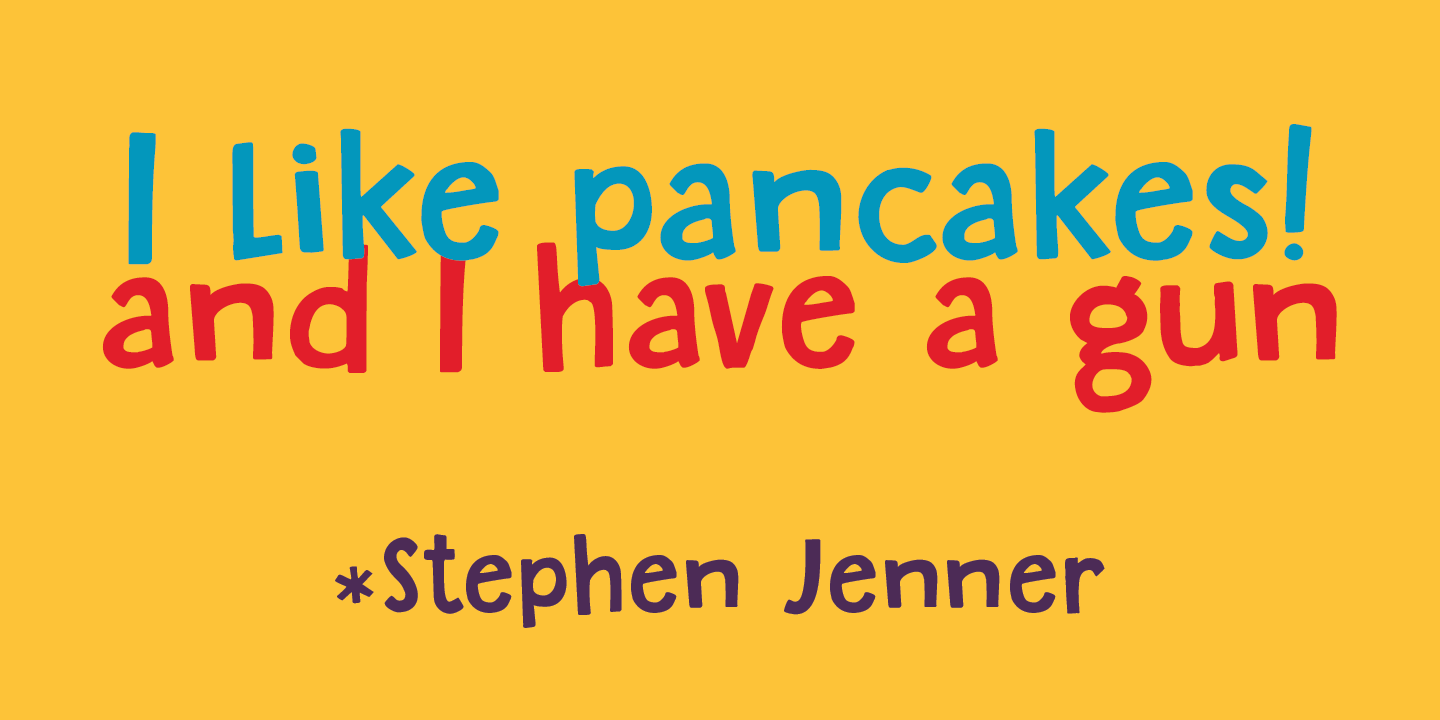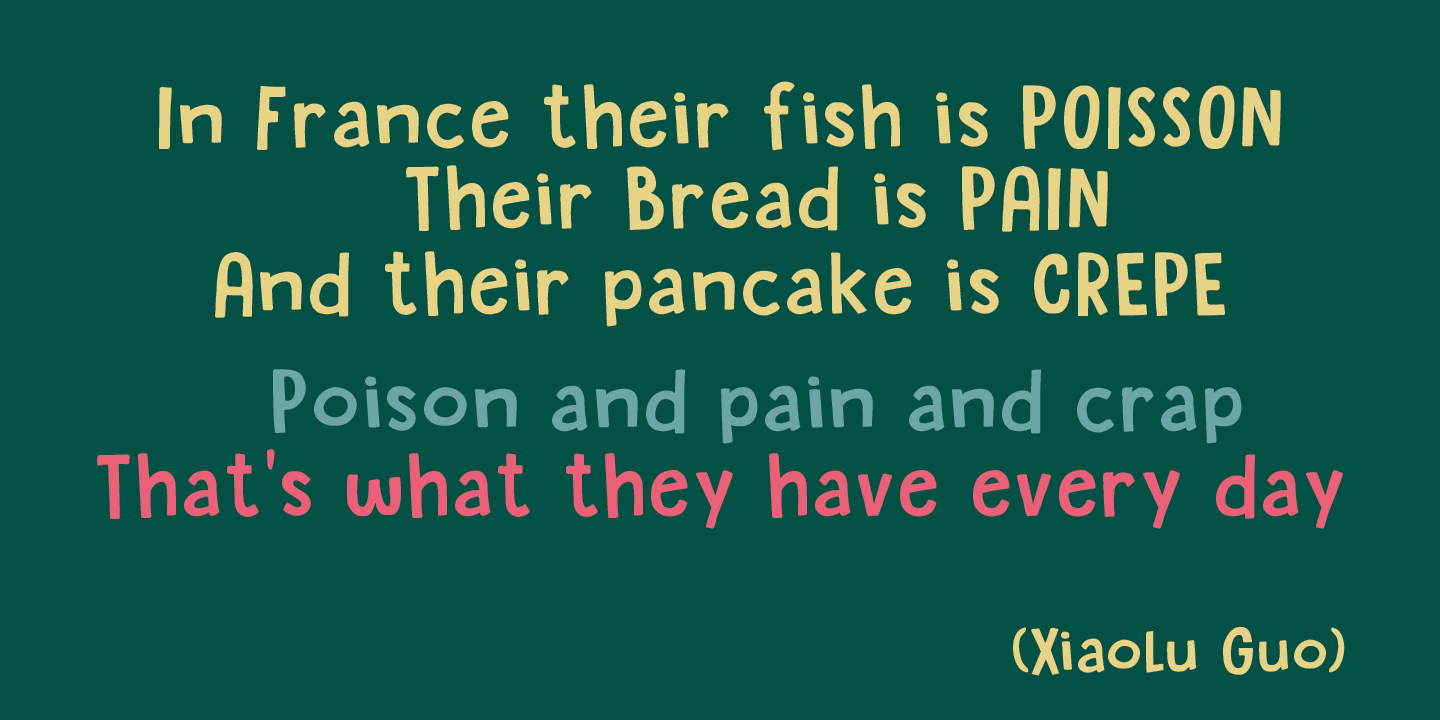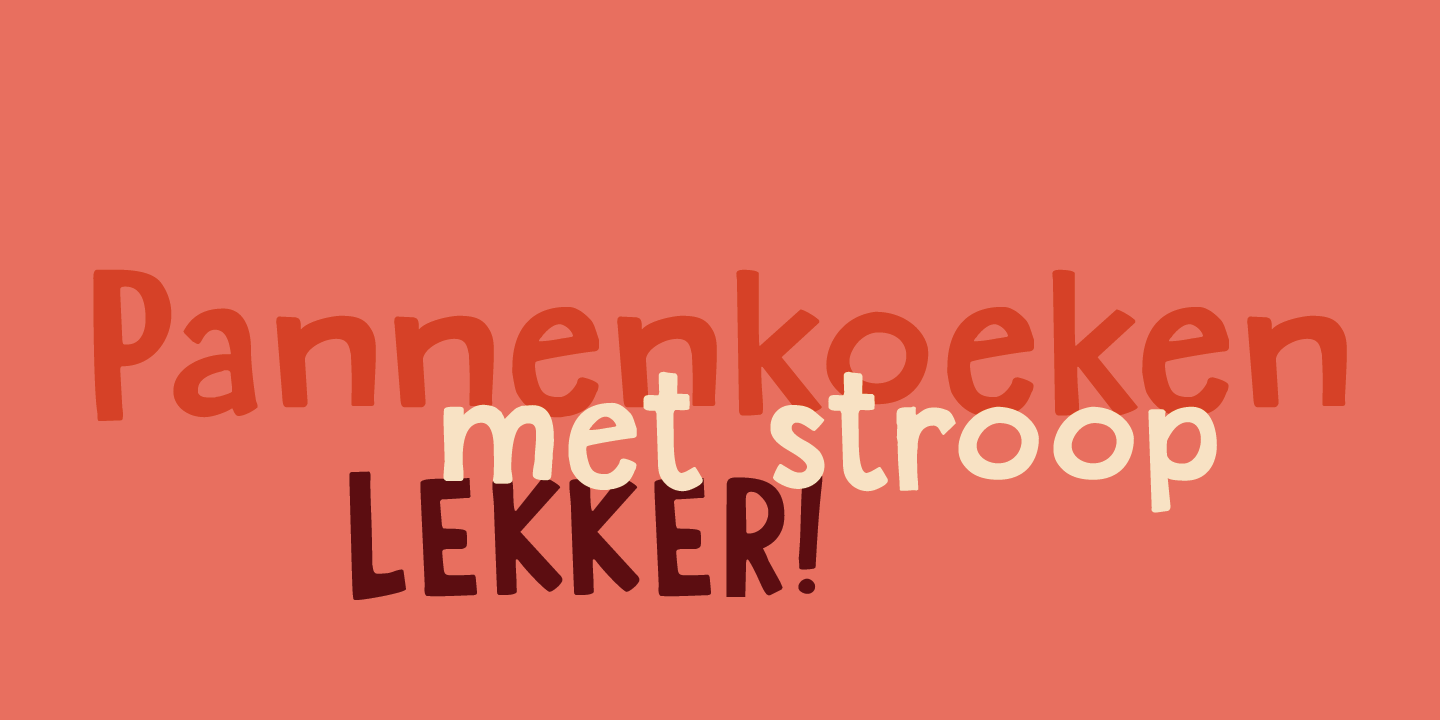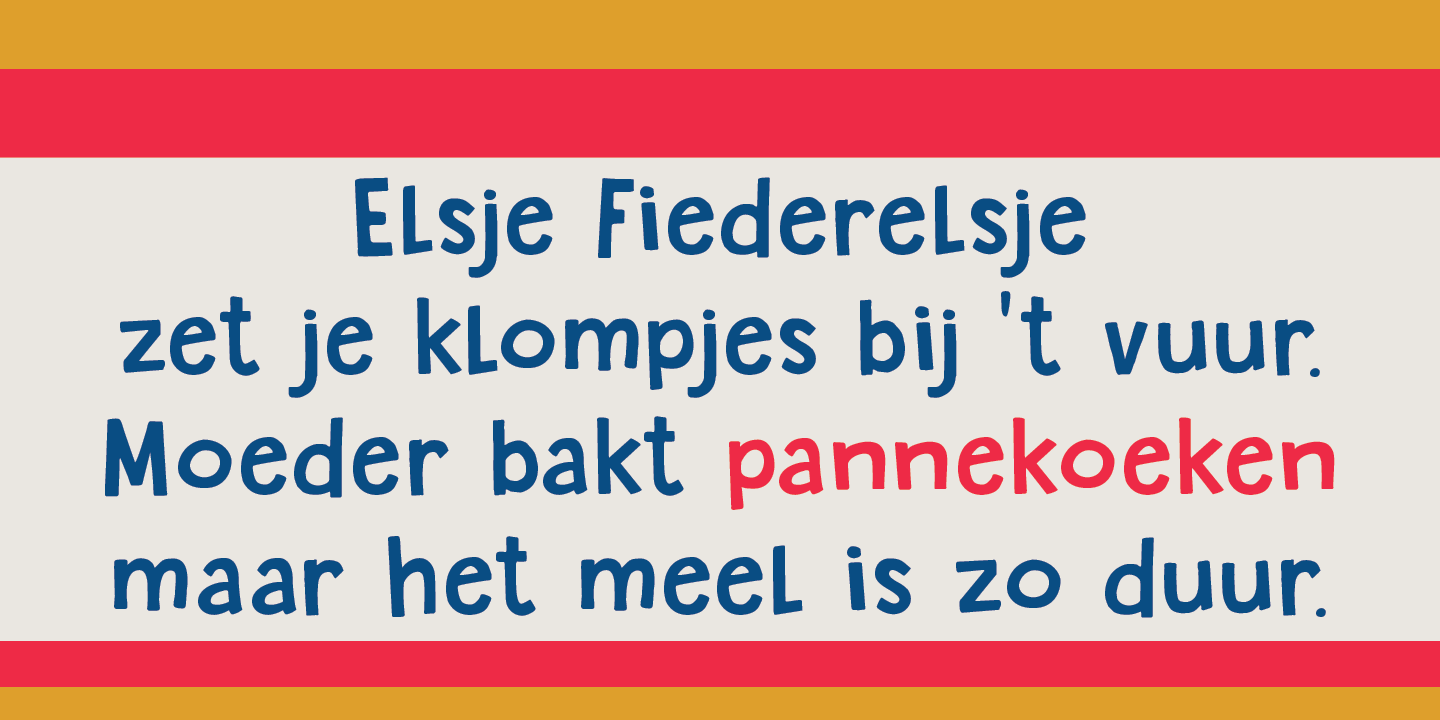
Sugary Pancake
Sugary Pancakes - ahh, my kids love them. We don't make them too often, as they are 'energetic' enough as it is. This calorie-rich font is ideal for Children's Books and posters: it is fun, bouncy, very legible and full of character. Comes with a topping of diacritics and a stack of happiness.